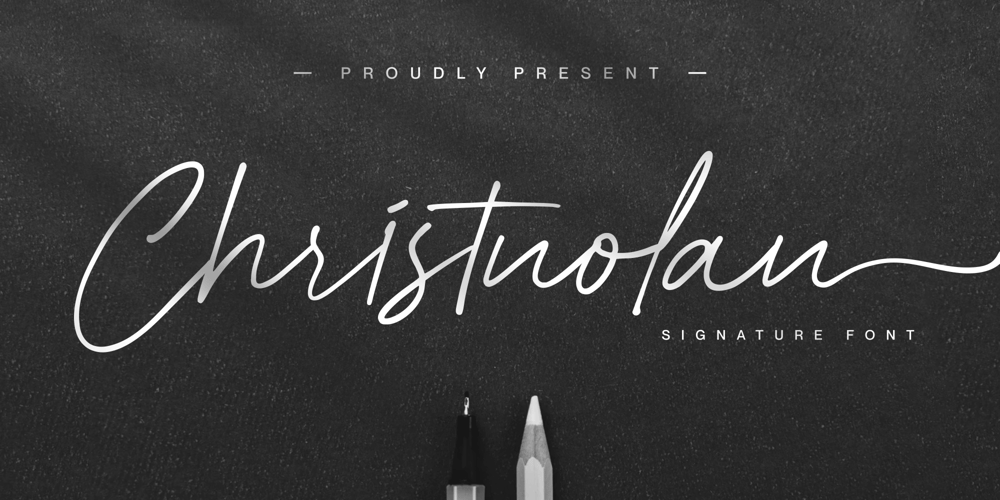
Christnolan
Christnolan font
Christnolan Font Family was designed by Fachrizal Yusuf and published by Allouse Studio. Christnolan contains 1 styles and family package options. Proudly Present, Christnolan a Signature Font.Christnolan is perfect for any titles, logo, product packaging, branding project, megazine, social media, wedding, or just used to express words above the background.Christnolan come with ligatures, stylistic alternates, beginning and ending swash, also Multi-Lingual Support.We highly recommend using a program that supports OpenType features and Glyphs panels like many of Adobe apps and Corel Draw, so you can see and access all Glyph variations.Enjoy the font, feel free to comment or feedback, send me PM or email. Thank You!